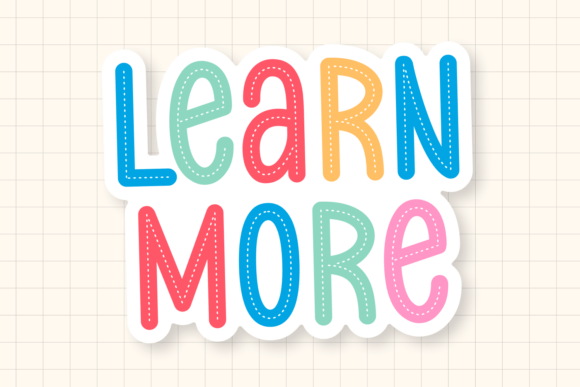
Learn More Font: A Playful and Distinctive Typeface for Creative Designs
The “Learn More” font is a unique and charming typeface that has gained popularity among designers and educators alike. Its hand-drawn aesthetic, dotted-line detailing, and rounded shapes make it an excellent choice for designs that require a friendly and approachable feel. In this article, we will explore the features and benefits of the “Learn More” font, and discuss its suitability for various design applications.
Key Features of Learn More Font
- Hand-drawn aesthetic: The “Learn More” font boasts a distinctive hand-drawn look that sets it apart from more conventional fonts.
- Dotted-line detailing: The font features dotted lines running through the center of the letters, adding a unique texture and a touch of a “stitched” or “handmade” quality.
- Rounded and irregular shapes: The letters have a rounded, slightly irregular shape, giving them a friendly and approachable feel.
- Vibrant and youthful appearance: The font’s playful design makes it particularly suitable for designs aimed at children or for projects that require a fun, creative, and lighthearted tone.
Suitable Use Cases for Learn More Font
The “Learn More” font is a highly versatile option for various design applications. Its features make it an excellent choice for:
- Educational materials: The font’s playful and engaging design makes it perfect for textbooks, workbooks, and other educational resources.
- Craft projects: The font’s hand-drawn aesthetic and dotted-line detailing make it an excellent choice for craft projects, such as DIY tutorials and handmade product labels.
- Greeting cards: The font’s friendly and approachable feel makes it suitable for greeting cards, invitations, and other social stationery.
- Branding for children’s products: The font’s vibrant and youthful appearance makes it an excellent choice for branding and packaging for children’s products.
Characteristics of Learn More Font
The “Learn More” font is designed to provide a complete and adaptable typographic solution for designers, educators, and anyone creating engaging and visually appealing content. Its characteristics include:
- Complete set of uppercase and lowercase letters: The font includes a full range of letters, making it suitable for a wide range of design applications.
- Full range of numerals: The font includes a comprehensive set of numerals, making it suitable for designs that require numerical data.
- Punctuation marks and symbols: The font includes a wide range of punctuation marks and symbols, providing the tools needed for detailed text.
- Multilingual support: The font offers multilingual support, making it suitable for use in a wide array of content and languages.
Benefits of Using Learn More Font
The “Learn More” font offers several benefits to designers, educators, and anyone creating engaging and visually appealing content. Its benefits include:
- Unique and distinctive design: The font’s hand-drawn aesthetic and dotted-line detailing make it stand out from more conventional fonts.
- Flexibility: The font’s versatility makes it suitable for a wide range of design applications, from educational materials to craft projects.
- Friendliness: The font’s rounded and irregular shapes give it a friendly and approachable feel, making it suitable for designs aimed at children or for projects that require a fun, creative, and lighthearted tone.
- Multilingual support: The font’s multilingual support makes it suitable for use in a wide array of content and languages.
Tips for Using Learn More Font
To get the most out of the “Learn More” font, here are some tips for use:
- Use it for headings and titles: The font’s playful design makes it perfect for headings and titles, adding a touch of personality to your designs.
- Pair it with other fonts: The font’s versatility makes it suitable for pairing with other fonts, creating a unique and visually appealing typographic combination.
- Experiment with colors and textures: The font’s hand-drawn aesthetic and dotted-line detailing make it suitable for use with a range of colors and textures, adding depth and interest to your designs.
The “Learn More” font is a unique and charming typeface that offers a range of benefits and uses. Its hand-drawn aesthetic, dotted-line detailing, and rounded shapes make it an excellent choice for designs that require a friendly and approachable feel. With its versatility, multilingual support, and comprehensive character set, the “Learn More” font is an excellent addition to any designer’s toolkit.